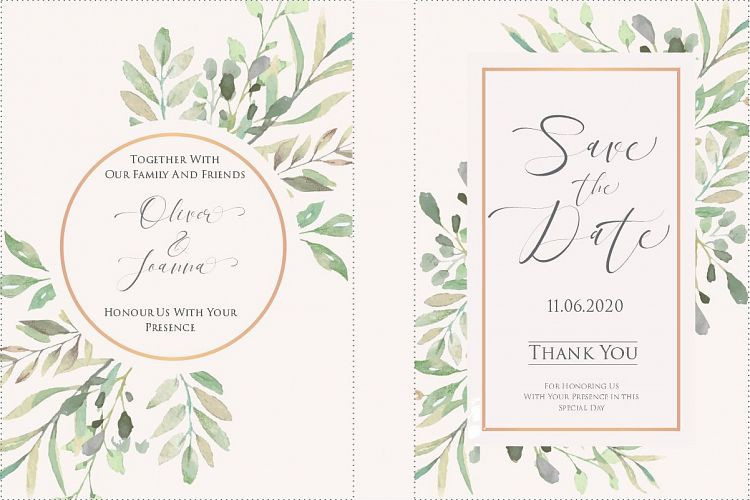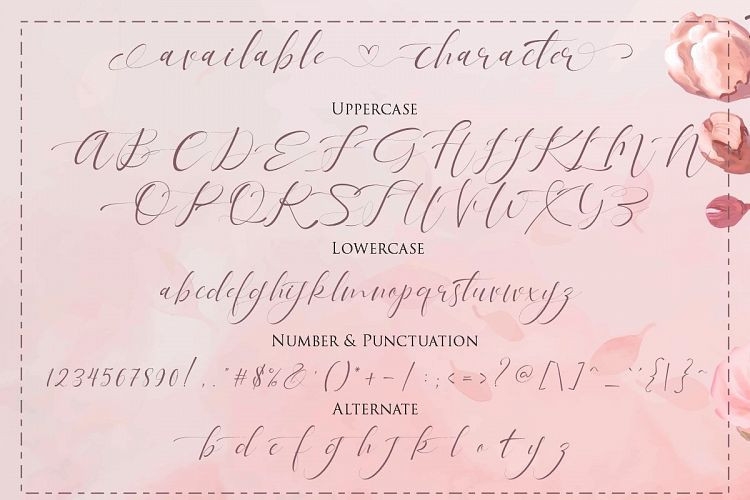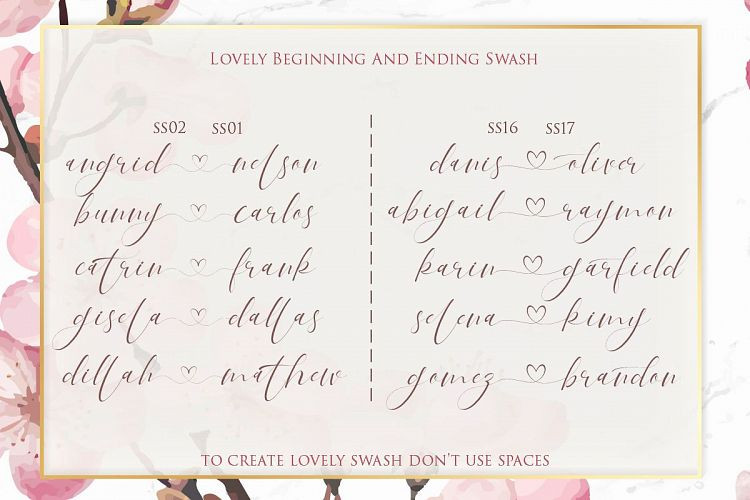
Pandora Calligraphy – Free Demo
Pandora Font is a modern calligraphy font with the current handwriting style, with various kinds of alternate that will make designing Instagram quotes, websites and more.. It’s designed and shared by Gilar Studio. It’s the beautiful calligraphy font, “Pandora Calligraphy” ! Pandora this font Is perfect for logo, invitation, stationery, wedding designs, social media posts, advertisements, product packaging, product designs, label, photography, watermark, special events or anything.